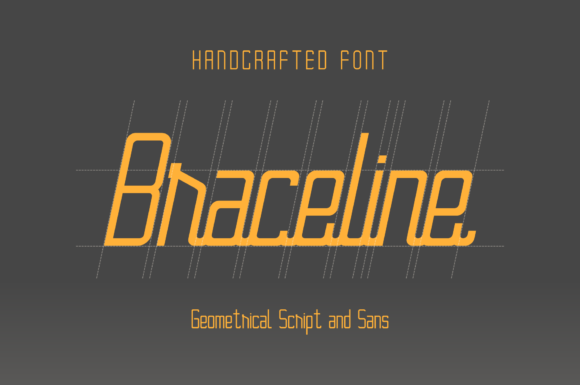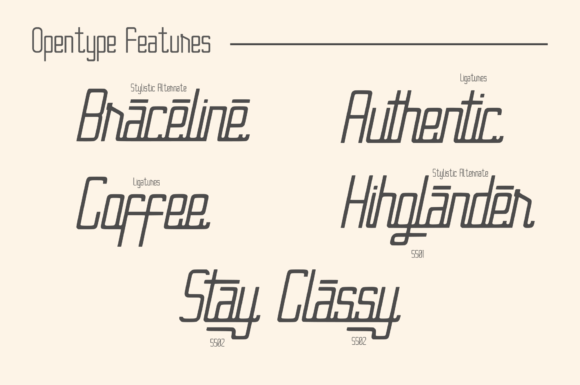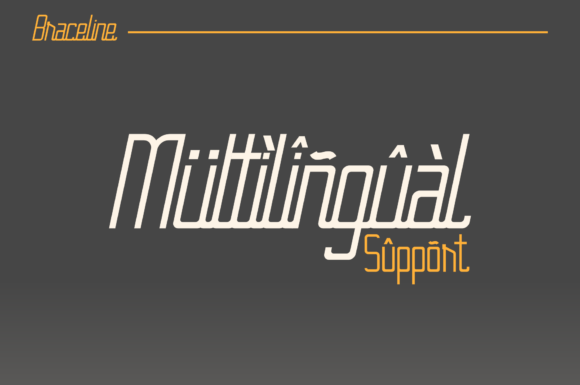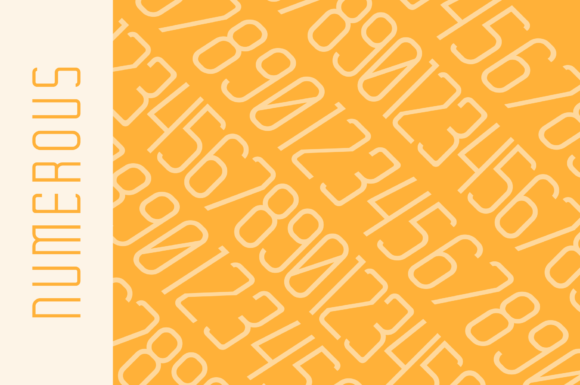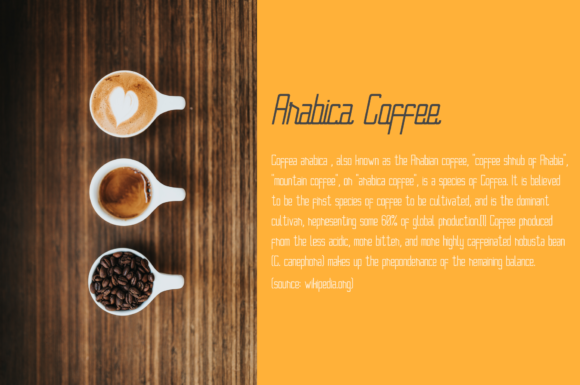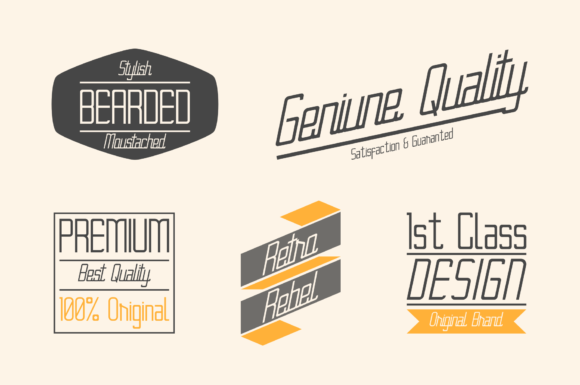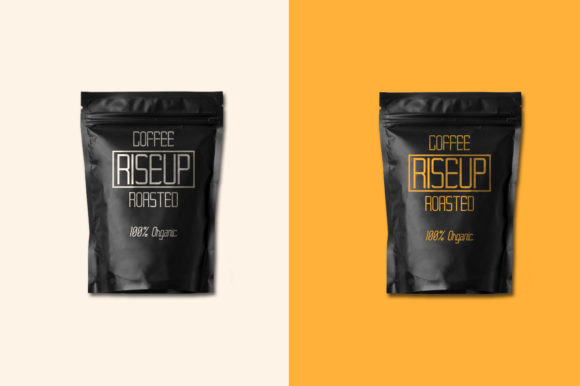
Braceline Duo Font
About Braceline Duo Font
The Braceline is a striking font duo. It has a great readability and includes a script and sans version.
It’s perfect for logos, articles, websites, pamphlets, packages, and much more!